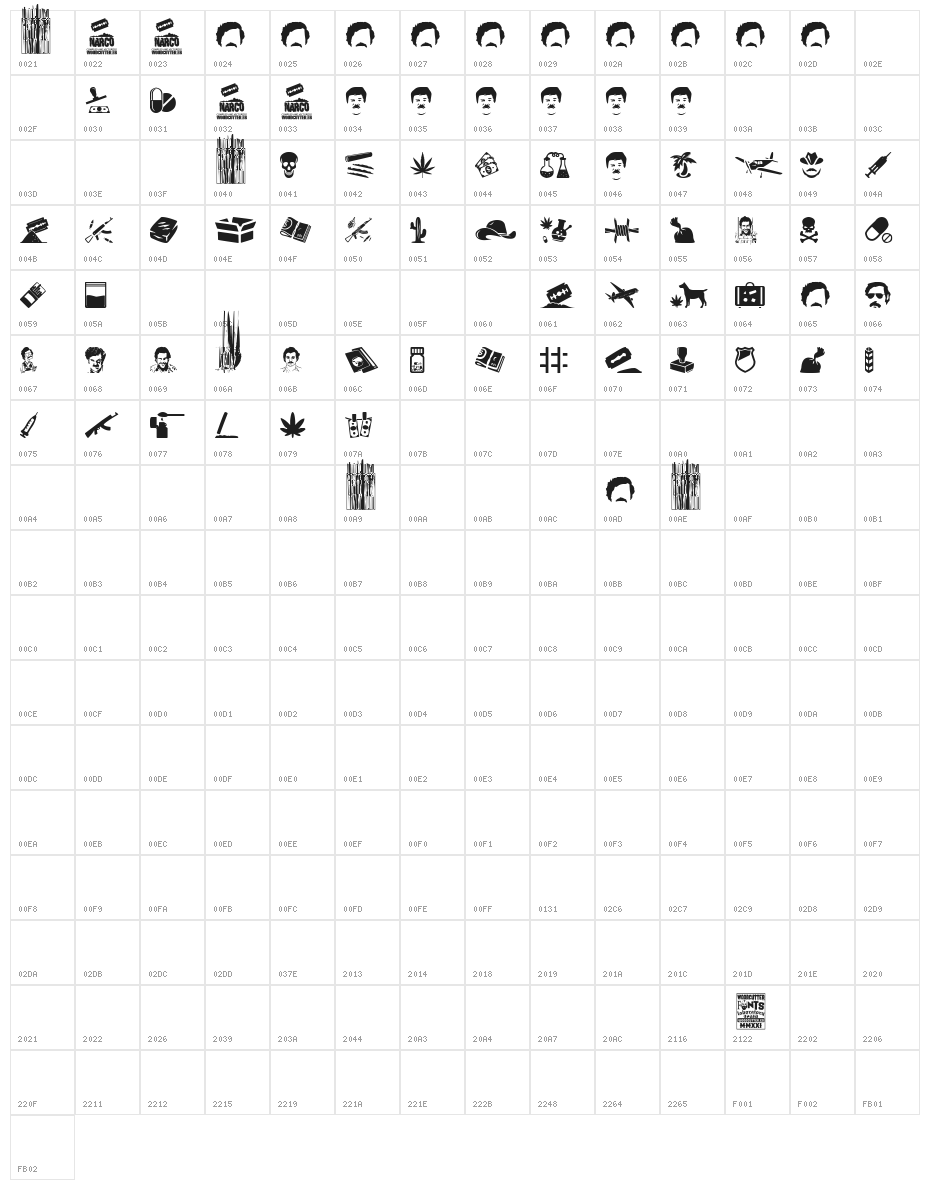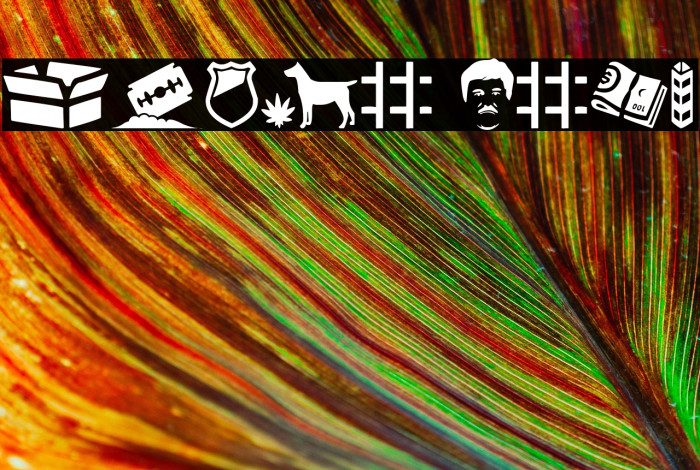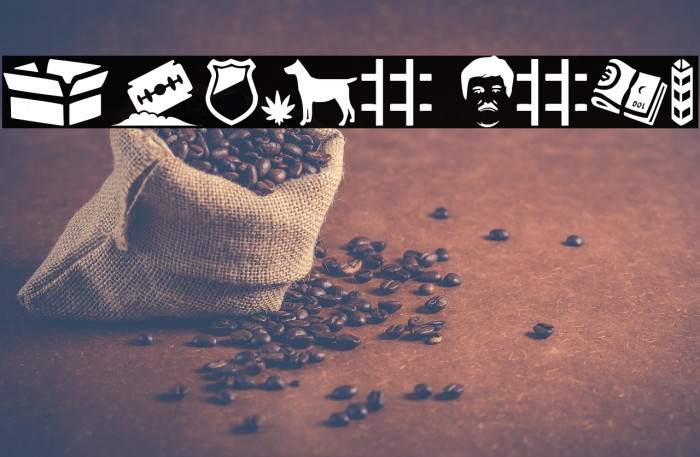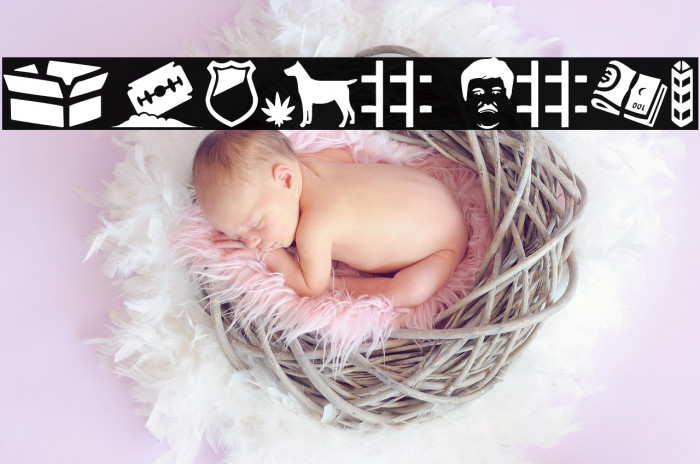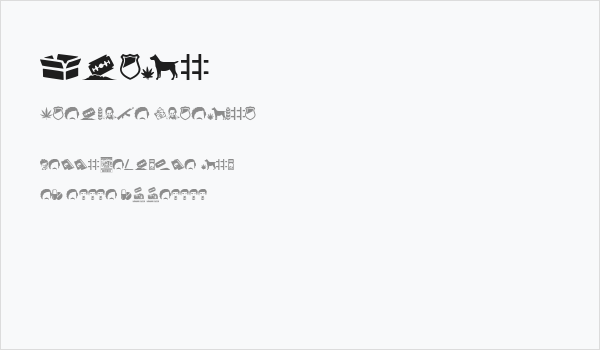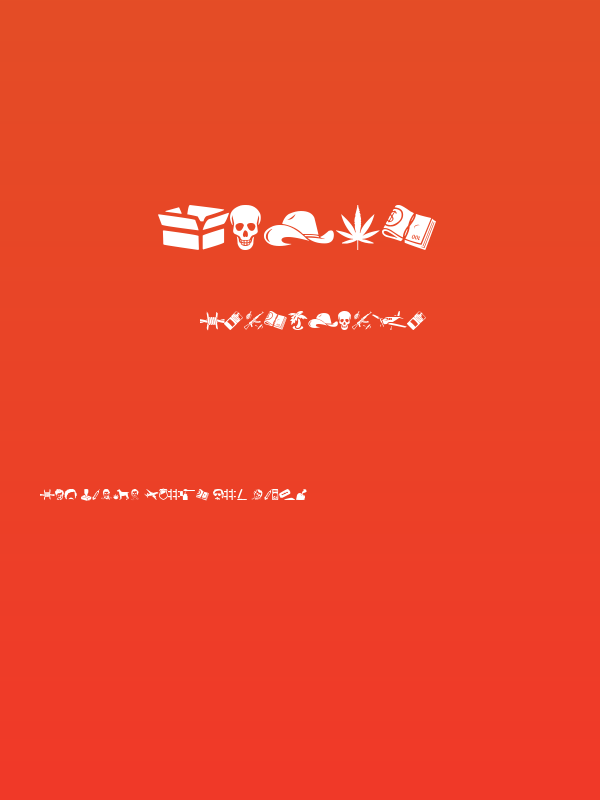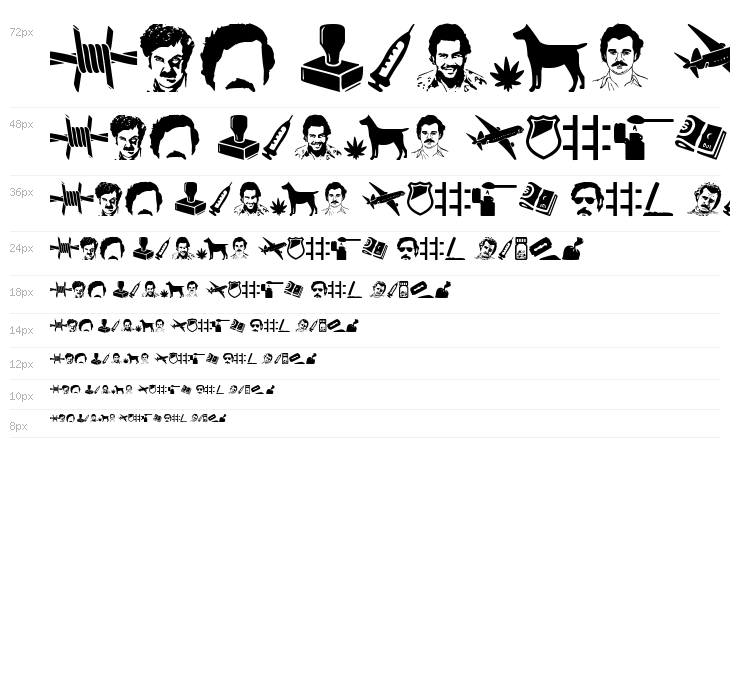
Narco Font
Narco Description
A collection of bold, high-contrast pictograms and icons themed around crime, narcotics, and law enforcement, featuring silhouettes of faces, drugs, weapons, and related paraphernalia. The style is graphic and illustrative, with thick lines and minimal detail, emphasizing recognizability and impact.
| Overall Style | Decorative, Graphic, Thematic |
| Use Case | Logos, Posters, Editorial graphics, Themed branding |
| Proposed Projects | Posters, editorial illustrations, themed infographics, video overlays, merchandise, awareness campaigns. |